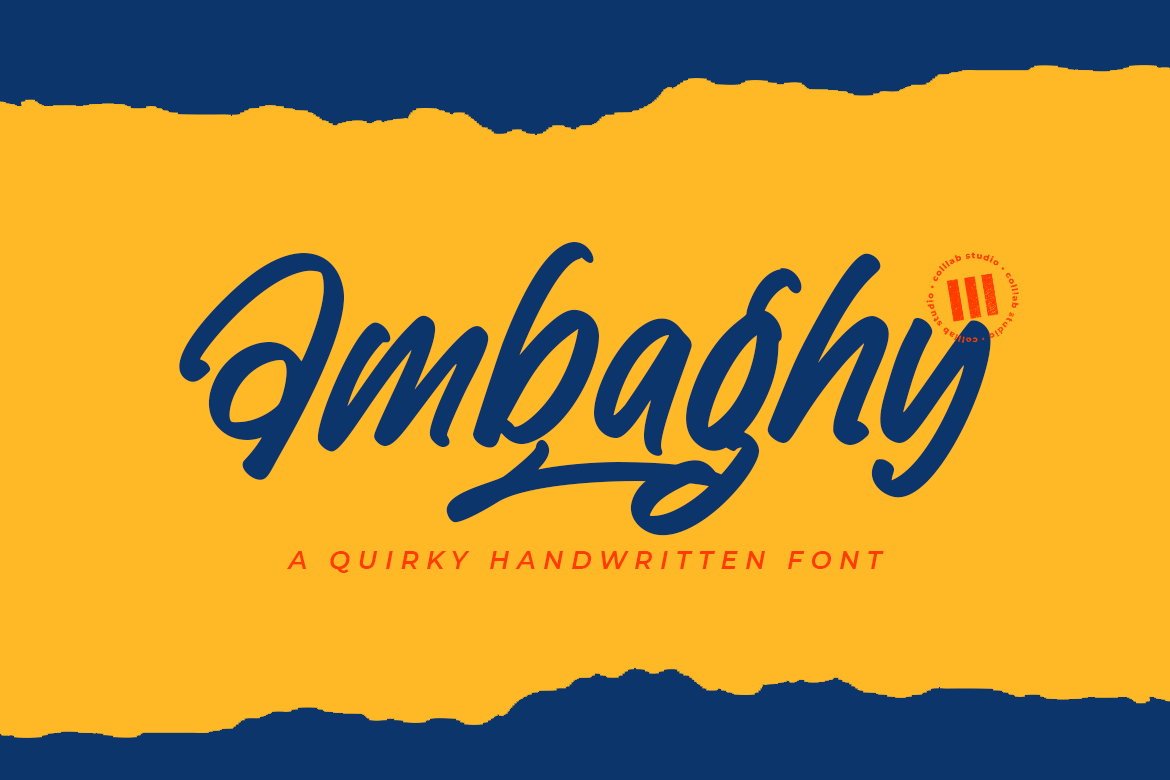
Ambaghy | A Handwritten Font
Ambaghy is a goofy font that's elevated by its posh, handwritten style. It will spice up your designs and add a unique feel to your design and it just might be the secret ingredient you've been missing.
Ambaghy works great for logos and headlines, and also works well in text blocks of body copy.
- 338 Glyphs,
- Swashes & Ligatures
- Multilanguage Support ( 87 Languages )